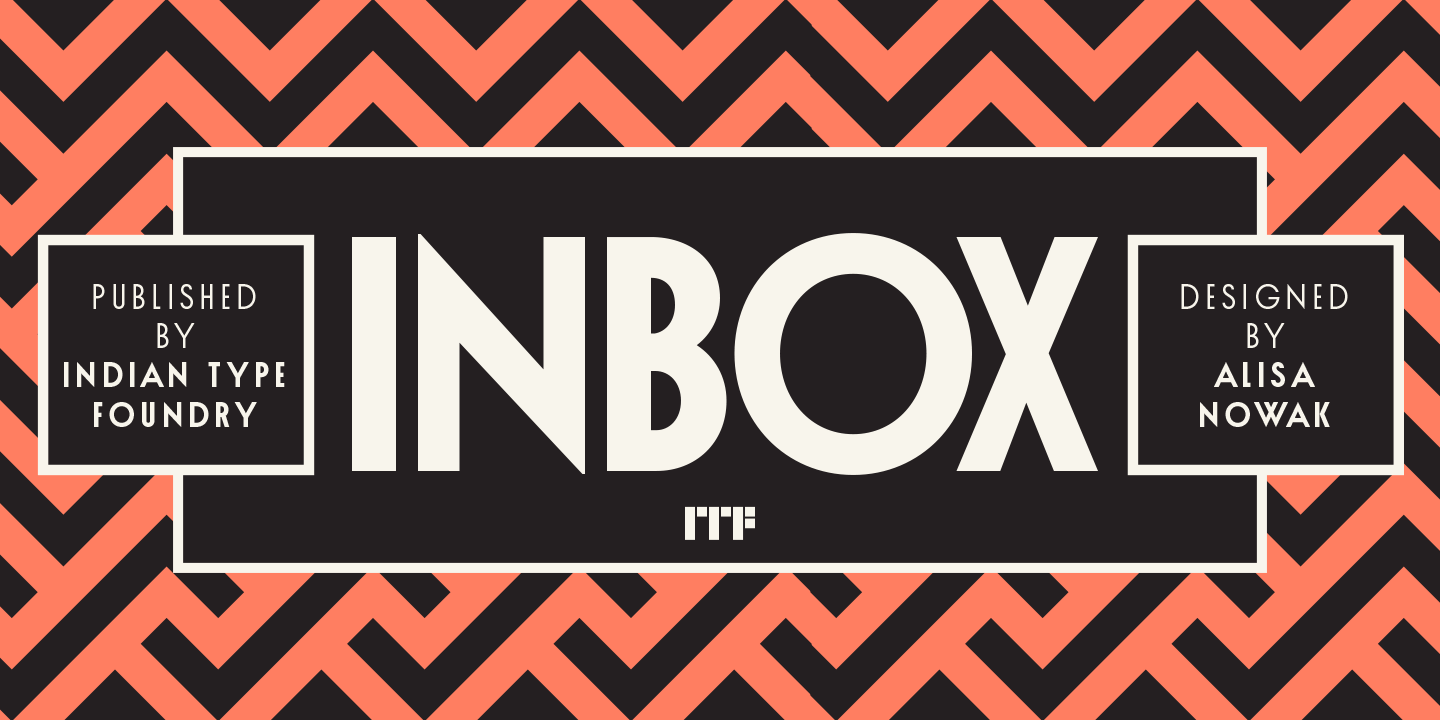
The Inbox Font is excellent for digital communication design projects including email marketing campaigns, tech company branding, messaging app interfaces, digital productivity tools, corporate communication systems, newsletter designs, online platform identities, and modern business correspondence materials. This contemporary typeface brings digital efficiency and professional connectivity to any design project requiring clear, organized typography for modern communication environments.
What makes Inbox Font so exciting is its perfect embodiment of digital communication clarity with clean, organized letterforms that capture the essence of efficient information processing and professional correspondence. The letters feature streamlined proportions with digital-optimized characteristics that create an immediate sense of organization and communication reliability. This distinctive digital character makes it perfect for brands and projects that want to communicate efficiency, professional connectivity, and the streamlined appeal of modern digital communication systems.
The Inbox Font family typically includes multiple weights from light to bold, complete with optimized screen variations and comprehensive character sets. Many versions feature communication symbols, digital interface glyphs, and productivity-focused design elements that enhance its functionality for email and messaging applications.
Whether you're designing for tech companies, communication platforms, or digital productivity services, Inbox Font Free Download provides the perfect solution for projects that need to convey digital efficiency and professional communication. This font transforms standard digital content into organized designs that immediately communicate technological reliability, communication excellence, and the streamlined appeal of modern digital correspondence to users seeking efficient communication solutions and professional connectivity.